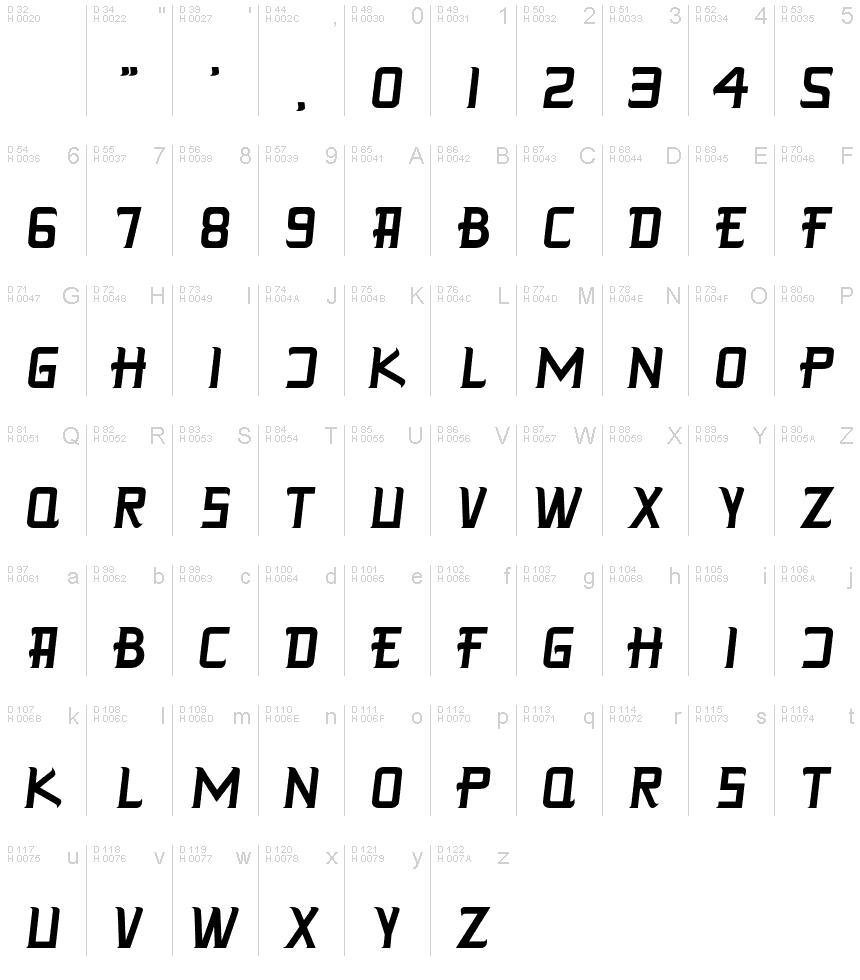
DEFINITE SOUL
The Definite Soul is a striking serif. Its a strong and ravishing sans serif typeface. Perfect for adding a completely timeless look to your designs!